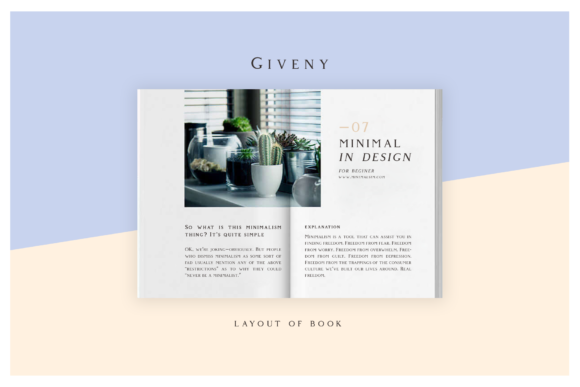
Giveny Font: A Classy Serif Font for Elegant Designs
Giveny Font is a sophisticated serif font that embodies the essence of transitional serifs. Its unique design features a perfect blend of classic and modern elements, making it an ideal choice for designers seeking to create elegant and professional-looking designs. In this article, we’ll explore the distinctive characteristics of Giveny Font, its design philosophy, and the various ways it can be used to elevate your designs.
Distinctive Features of Giveny Font
Giveny Font boasts several distinctive features that set it apart from other serif fonts. Some of its notable characteristics include:
- Relatively low contrast of strokes: Giveny Font features a subtle contrast between thick and thin strokes, creating a sense of balance and harmony.
- Slightly squarish shapes of round characters: The round characters in Giveny Font have a slightly squarish shape, adding a touch of uniqueness and sophistication.
- Emphasized businesslike nature: Giveny Font exudes a professional and businesslike feel, making it perfect for corporate designs and branding.
The Design Philosophy Behind Giveny Font
Giveny Font has been crafted from scratch with a structural logic that combines pure geometry and optical balance. The font’s design is rooted in a fusion of various styles, making it versatile and suitable for a wide range of design applications. The design team behind Giveny Font aimed to create a font that is both elegant and legible, with a unique character that sets it apart from other serif fonts.
Using Giveny Font in Your Designs
Giveny Font is a versatile font that can be used in various design applications, including:
- Logos: Giveny Font’s elegant and professional design makes it perfect for logos, particularly for businesses that want to convey a sense of sophistication and luxury.
- Greeting cards: The font’s classic and refined design makes it suitable for greeting cards, adding a touch of elegance and warmth to your designs.
- Quotes: Giveny Font’s clear and legible design makes it ideal for quotes, allowing your audience to focus on the message.
- Posters: The font’s bold and eye-catching design makes it perfect for posters, adding a touch of sophistication and glamour to your designs.
- Branding: Giveny Font’s professional and businesslike nature makes it suitable for branding, particularly for businesses that want to convey a sense of luxury and sophistication.
- Name card: The font’s elegant and refined design makes it perfect for name cards, adding a touch of class and sophistication to your designs.
- Stationary: Giveny Font’s classic and timeless design makes it suitable for stationary, adding a touch of elegance and refinement to your designs.
- Design title: The font’s bold and eye-catching design makes it perfect for design titles, adding a touch of sophistication and glamour to your designs.
- Blog header: Giveny Font’s elegant and refined design makes it suitable for blog headers, adding a touch of class and sophistication to your blog.
- Art quote: The font’s clear and legible design makes it ideal for art quotes, allowing your audience to focus on the message.
- Typography: Giveny Font’s unique character and elegant design make it perfect for typography, adding a touch of sophistication and glamour to your designs.
The Benefits of Using Giveny Font
Giveny Font offers several benefits to designers, including:
- Elegance and sophistication: Giveny Font adds a touch of elegance and sophistication to your designs, making it perfect for luxury brands and high-end designs.
- Legibility: The font’s clear and legible design makes it easy to read, even at small sizes.
- Versatility: Giveny Font is a versatile font that can be used in various design applications, from logos to typography.
- Uniqueness: The font’s unique character and design features set it apart from other serif fonts, making it perfect for designers seeking to create distinctive designs.
Tips and Tricks for Using Giveny Font
Here are some tips and tricks for using Giveny Font in your designs:
- Use it with a contrasting background: Giveny Font’s elegant design looks best on a contrasting background, which helps to make the text stand out.
- Experiment with font sizes: Giveny Font is legible at various font sizes, so experiment with different sizes to find the one that works best for your design.
- Pair it with other fonts: Giveny Font can be paired with other fonts to create a unique and eye-catching design.
Giveny Font is a classy serif font that offers a unique blend of elegance, sophistication, and legibility. Its versatile design makes it suitable for various design applications, from logos to typography. With its distinctive features, design philosophy, and benefits, Giveny Font is an excellent choice for designers seeking to create elegant and professional-looking designs.